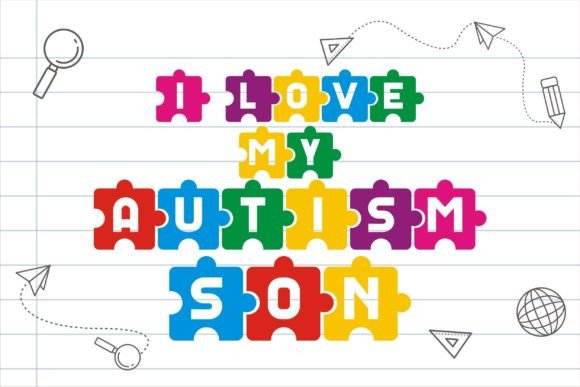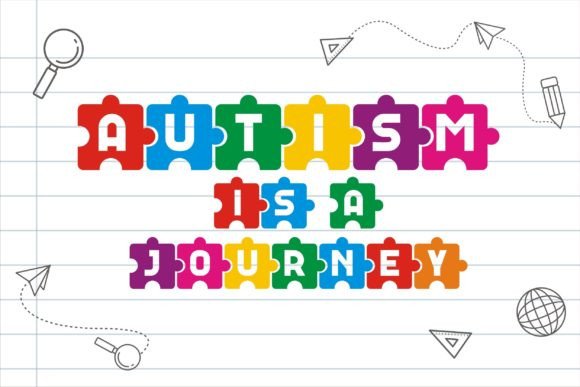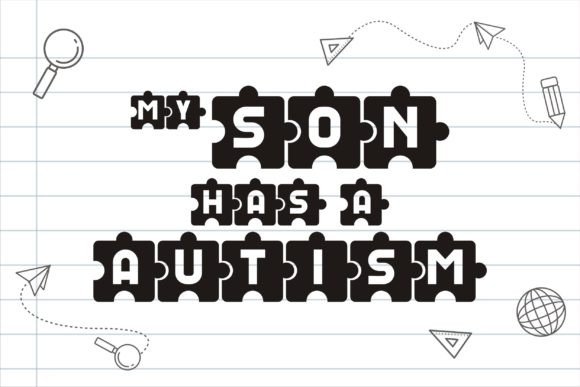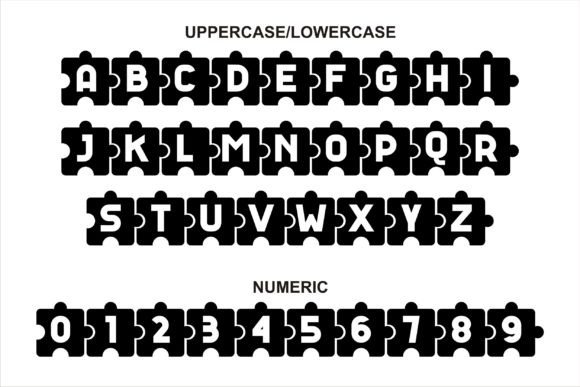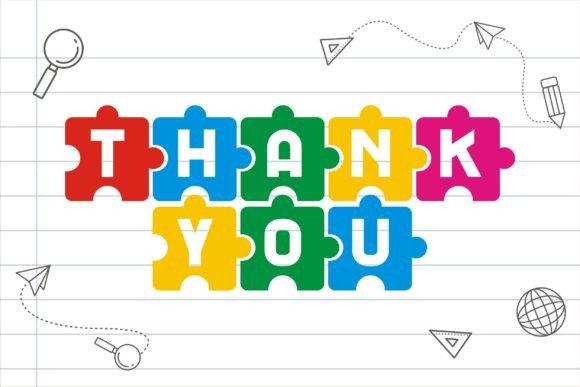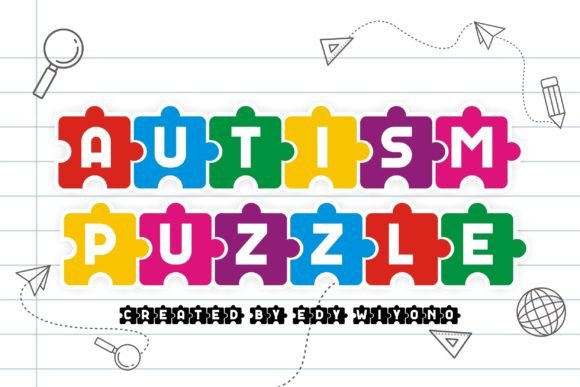
Unlock Creativity with Autism Puzzle Font: A Decorative Delight for Children’s Themes
In the world of design, fonts play a crucial role in conveying messages, evoking emotions, and creating engaging visual content. For designers and crafters working on children’s themes, finding the right font can be a game-changer. This is where the Autism Puzzle Font comes in – a unique, decorative font that is not only visually appealing but also carries a meaningful purpose. In this article, we’ll dive into the world of Autism Puzzle Font, exploring its features, benefits, and uses, as well as provide valuable insights for designers and crafters looking to elevate their creations.
What is Autism Puzzle Font?
Autism Puzzle Font is a distinctive font designed with decorative puzzles, making it an ideal choice for children’s themes. The font’s design is inspired by the puzzle pieces often associated with autism awareness, symbolizing the complexity and beauty of individuality. The font’s creator aimed to produce a typeface that not only stands out but also promotes understanding and acceptance.
Key Features of Autism Puzzle Font
• Decorative Puzzles: The font’s most striking feature is its decorative puzzle pieces, which add a playful and whimsical touch to any design.
• Versatility: Despite being designed for children’s themes, Autism Puzzle Font can be used for a wide range of projects, from educational materials to crafts, and even adult-oriented designs.
• Unique and Eye-catching: The font’s distinctive design ensures that your creations will stand out from the crowd, grabbing the attention of your audience.
• Easy to Read: Despite its decorative nature, Autism Puzzle Font remains clear and easy to read, making it suitable for body text and headings.
Benefits of Using Autism Puzzle Font
Autism Puzzle Font offers several benefits for designers and crafters:
• Instant Recognition: The font’s association with autism awareness can help create instant recognition and connection with your audience.
• Emotional Connection: The font’s meaningful design can evoke emotions and create a sense of empathy, making your designs more relatable and impactful.
• Creative Freedom: With Autism Puzzle Font, you can experiment with various design ideas, from colorful illustrations to educational materials.
• Inclusivity: By using a font that promotes understanding and acceptance, you can create designs that are inclusive and respectful of diverse audiences.
Using Autism Puzzle Font in Design Projects
Autism Puzzle Font can be used in a variety of design projects, including:
• Children’s Books and Educational Materials: The font’s playful design makes it perfect for children’s books, educational resources, and activity sheets.
• Crafts and DIY Projects: Autism Puzzle Font can add a personal touch to craft projects, such as handmade cards, gift tags, and decorations.
• Posters and Flyers: The font’s bold design makes it suitable for posters and flyers promoting autism awareness, events, or campaigns.
• Digital Designs: Autism Puzzle Font can be used in digital designs, such as social media graphics, blog posts, and website headers.
To get the most out of Autism Puzzle Font, consider the following tips:
• Experiment with Colors: The font’s design lends itself well to bright, bold colors, so don’t be afraid to experiment and find the perfect color scheme for your project.
• Mix and Match: Combine Autism Puzzle Font with other fonts to create visually appealing contrasts and add depth to your designs.
• Keep it Simple: While the font is decorative, it’s essential to balance it with simple, clear text to ensure readability.
• Be Mindful of Context: Consider the context in which you’ll be using the font, ensuring that it aligns with your message and audience.
In conclusion, Autism Puzzle Font is a unique and versatile font that can elevate any design project, particularly those focused on children’s themes. Its decorative puzzles and meaningful design make it an excellent choice for designers and crafters looking to create engaging, inclusive, and impactful content. By incorporating Autism Puzzle Font into your design library, you’ll unlock a world of creative possibilities and contribute to promoting understanding and acceptance.